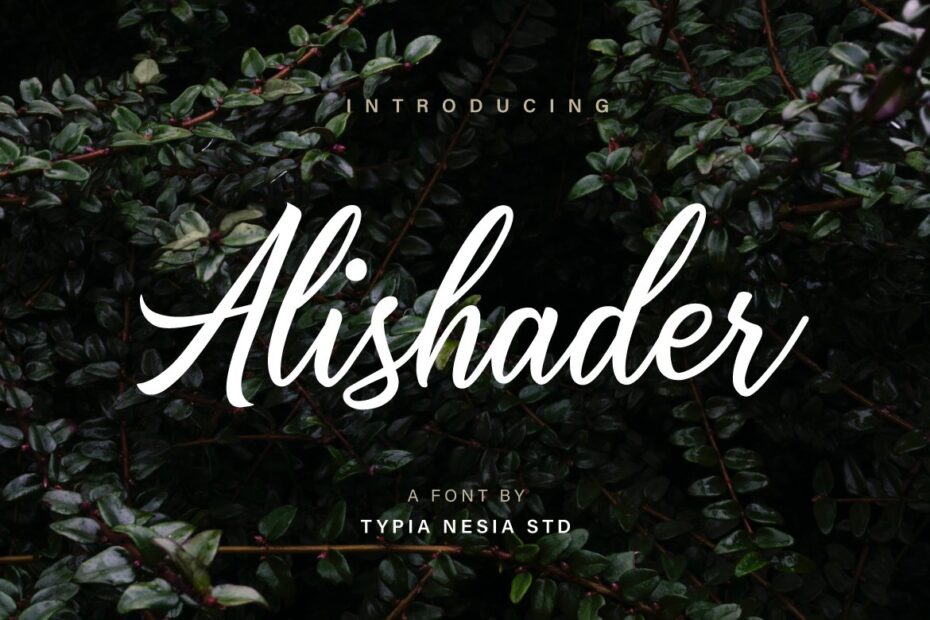
The Perfect Brushstroke: Elevate Your Designs with Alishader Font
You know that moment when you’re working on a design project, and everything just feels off? The words aren’t flowing, the colors aren’t popping, and you just can’t seem to find the right font to tie everything together? That’s where Alishader Font comes in – a stunning, elegant calligraphy font that adds a touch of sophistication to any design.
Alishader Font is designed to make a statement, with its modern and refined aesthetic perfect for logotype projects or as a headline. Whether you’re a seasoned designer or just starting out, this font is sure to bring a stylish edge to your work. With Alishader Font, you can create eye-catching designs that leave a lasting impression.
- Unique Characteristics: The font features a unique blend of modern and vintage elements, with distinctive line art and subtle texture, making it perfect for creating eye-catching designs.
Alishader Font Review
Overall, I’m quite impressed with the Alishader font. ✨ Its unique blend of modern and vintage elements gives it a stylish, eye-catching appearance that can add a lot of character to any design project.
- The Alishader font has a wide range of weights and styles, making it suitable for various design applications, from headings to body text.
- The font’s bold and condensed styles are particularly effective for creating visually striking headings and titles.
- The Alishader font is highly legible, even at small font sizes, making it a great choice for digital designs.
- ⚠️ The font’s vintage-inspired elements can sometimes make it feel over-the-top or kitschy, which may not be suitable for all design projects.
- ⚠️ The font’s condensed styles can be difficult to read at very small font sizes, particularly for body text.
- ⚠️ The Alishader font may not be suitable for designs that require a more straightforward, minimalist aesthetic.
Overall, the Alishader font is a solid choice for designers who want to add some personality and style to their projects. While it may have some limitations, its unique blend of modern and vintage elements makes it a great option for designs that require a bit of flair.
Tip: Use Alishader Font for creative and artistic designs, such as typography-based posters and quotes.
Tip: Use Alishader Font for custom typography and design elements in your Adobe projects.
Tip: Use Alishader Font for creative and artistic presentations and documents, such as infographics and reports.
Alishader Font is ideal for:
- Typography-based designs
- Artistic and creative projects
- Infographics and reports
Remember to use Alishader Font in moderation, as it can be quite bold and attention-grabbing.
Great Vibes Font is more elegant and refined compared to Alishader Font, which has a more casual and modern feel. While Alishader Font is great for everyday use, Great Vibes Font is better suited for high-end or luxury projects.
Pacifico Font is more casual and laid-back compared to Alishader Font, which has a more modern and sleek feel. While Alishader Font is great for tech or corporate projects, Pacifico Font is better suited for creative or lifestyle projects.